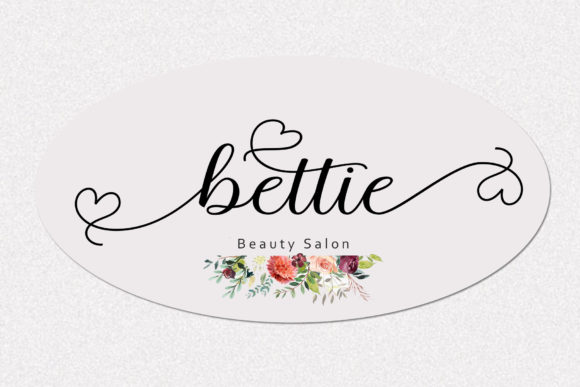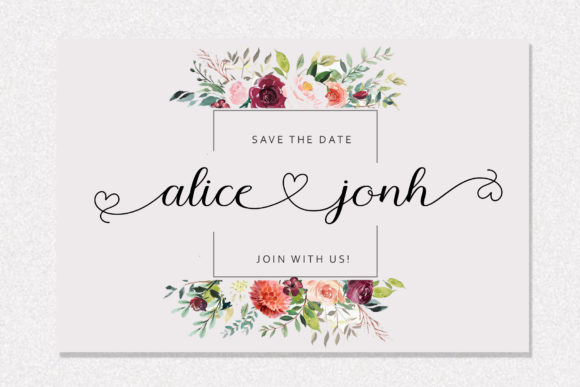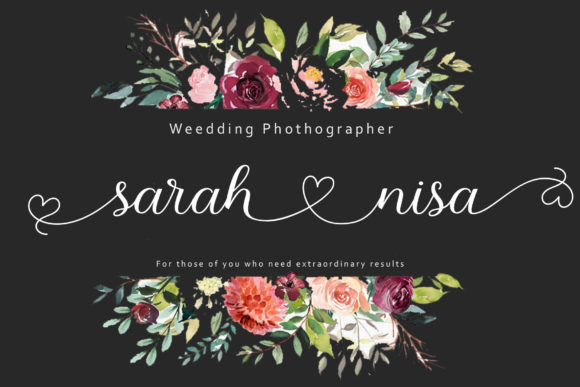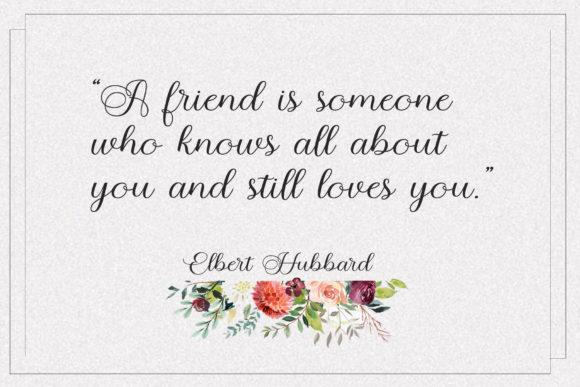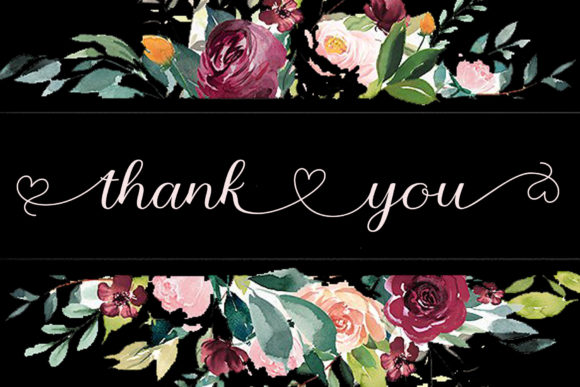
Dino Lena Font: Elevate Your Designs with a Delicate and Slim Script Font
Are you a designer or crafter looking for a font that can add a touch of elegance and sophistication to your projects? Look no further than the Dino Lena Font. This beautiful, delicate, and slim script font is perfect for a wide range of design applications, from product packaging and branding projects to magazine covers, social media graphics, and wedding designs.
What Makes Dino Lena Font Special?
Dino Lena Font is a stunning script font that is designed to help you create beautiful and eye-catching designs. Its delicate and slim lines make it perfect for adding a touch of elegance and sophistication to any project. The font is also highly versatile, making it suitable for a wide range of design applications.
One of the standout features of Dino Lena Font is its PUA (Private Use Area) encoding. This means that you can access all of the glyphs and swashes with ease, giving you complete creative control over your designs. Whether you’re looking to add a personal touch to your designs or create a unique brand identity, Dino Lena Font has got you covered.
Uses for Dino Lena Font
So, what can you use Dino Lena Font for? The possibilities are endless! Here are just a few ideas to get you started:
• Product Packaging: Add a touch of elegance and sophistication to your product packaging with Dino Lena Font. Whether you’re designing labels, tags, or packaging inserts, this font is sure to make your products stand out.
• Branding Projects: Create a unique and memorable brand identity with Dino Lena Font. Use it to design logos, business cards, and other marketing materials that reflect your brand’s personality and style.
• Magazine Covers: Make your magazine covers stand out with Dino Lena Font. This font is perfect for creating eye-catching headlines, titles, and subtitles that grab readers’ attention.
• Social Media Graphics: Use Dino Lena Font to create stunning social media graphics that showcase your brand’s personality and style. From Facebook posts to Instagram stories, this font is sure to make your graphics stand out.
• Wedding Designs: Make your wedding designs truly special with Dino Lena Font. Use it to create beautiful wedding invitations, programs, and other stationery that reflects your personal style.
Benefits of Using Dino Lena Font
So, why should you choose Dino Lena Font for your design projects? Here are just a few benefits of using this beautiful script font:
• Elegant and Sophisticated: Dino Lena Font adds a touch of elegance and sophistication to any design project. Its delicate and slim lines make it perfect for creating beautiful and eye-catching designs.
• Highly Versatile: This font is highly versatile, making it suitable for a wide range of design applications. From product packaging to wedding designs, Dino Lena Font is the perfect choice.
• PUA Encoded: With PUA encoding, you can access all of the glyphs and swashes with ease. This gives you complete creative control over your designs and allows you to add a personal touch to your projects.
In conclusion, Dino Lena Font is a beautiful and versatile script font that is perfect for designers and crafters. Its delicate and slim lines make it perfect for adding a touch of elegance and sophistication to any design project. With its PUA encoding and ease of use, this font is sure to become a favorite in your design arsenal. So why wait? Download Dino Lena Font today and start creating stunning designs that showcase your creativity and style!